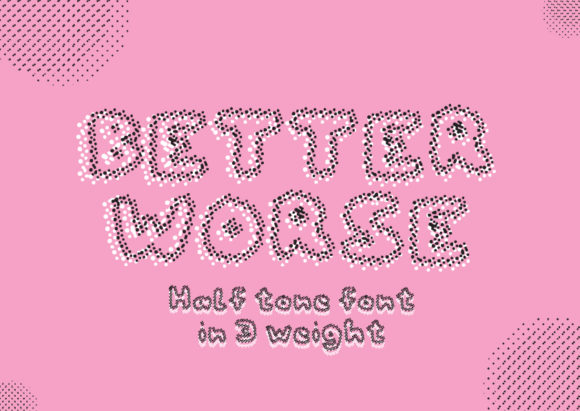
Behold the remarkable Better Worse Font, a display font family that's anything but ordinary! Crafted by the talented GraphicsBam Fonts, Better Worse is a halftone font that bursts with energy and vitality, ready to ignite your designs with its captivating charm.
Immerse yourself in the vibrant world of Better Worse, where each character dances across the screen like a playful ray of sunshine. This font is not just a collection of letters; it's an experience that will awaken your creativity and leave you yearning for more.
With three distinct weights—light, regular, and bold—Better Worse adapts effortlessly to your every need. Whether you're crafting eye-catching headlines, captivating social media posts, or designing unforgettable logos, Better Worse rises to the occasion, delivering excellence in every stroke.
Gone are the days of dull and monotonous fonts. Better Worse is your gateway to a world of limitless possibilities, where your designs will shine brighter than ever before. Its halftone texture adds a touch of retro nostalgia, while its playful spirit keeps your designs fresh and contemporary.
Step into the spotlight with Better Worse, the font that commands attention and leaves a lasting impression. Let your words dance with delight, captivating your audience with every twist and turn. Better Worse isn't just a font; it's a statement piece that proclaims your individuality and sets your designs apart from the crowd.
Embrace the dazzling brilliance of Better Worse, illuminating your designs with its radiant glow. Let your creativity soar as you explore the endless possibilities that await you. With Better Worse as your companion, mediocrity becomes a distant memory, and brilliance becomes your new reality.